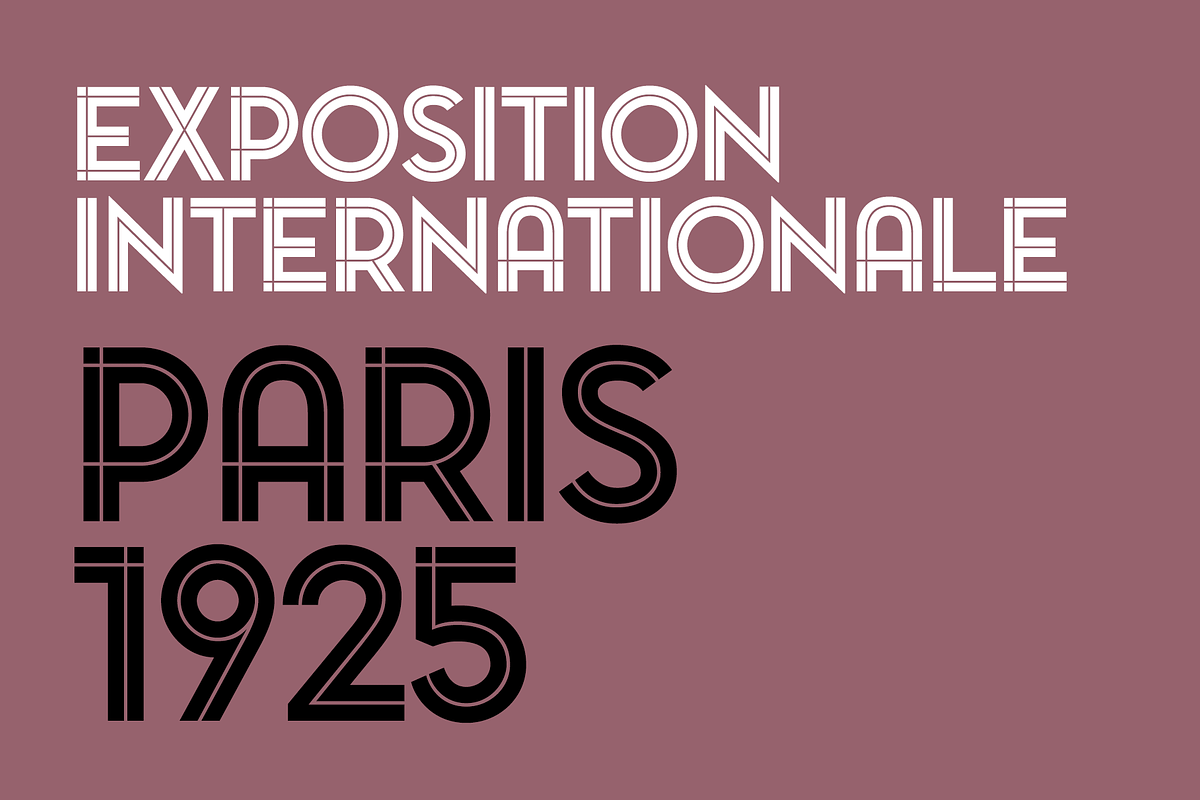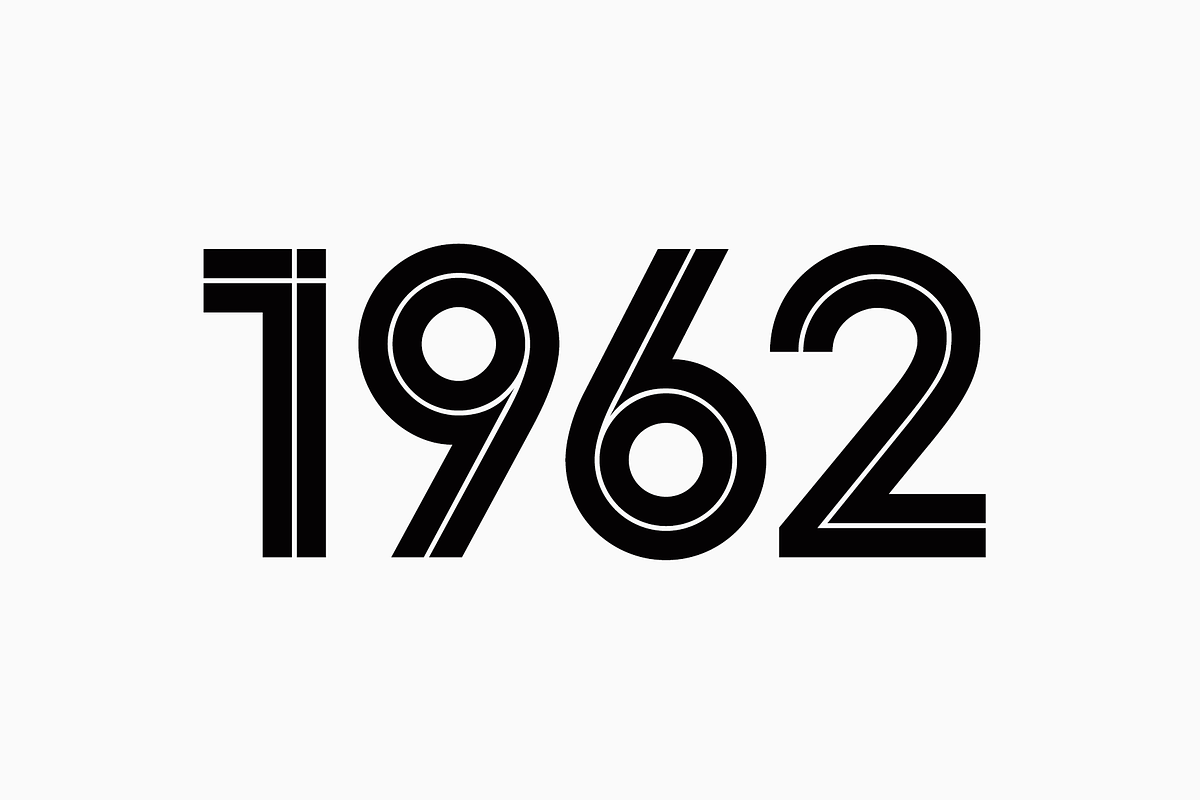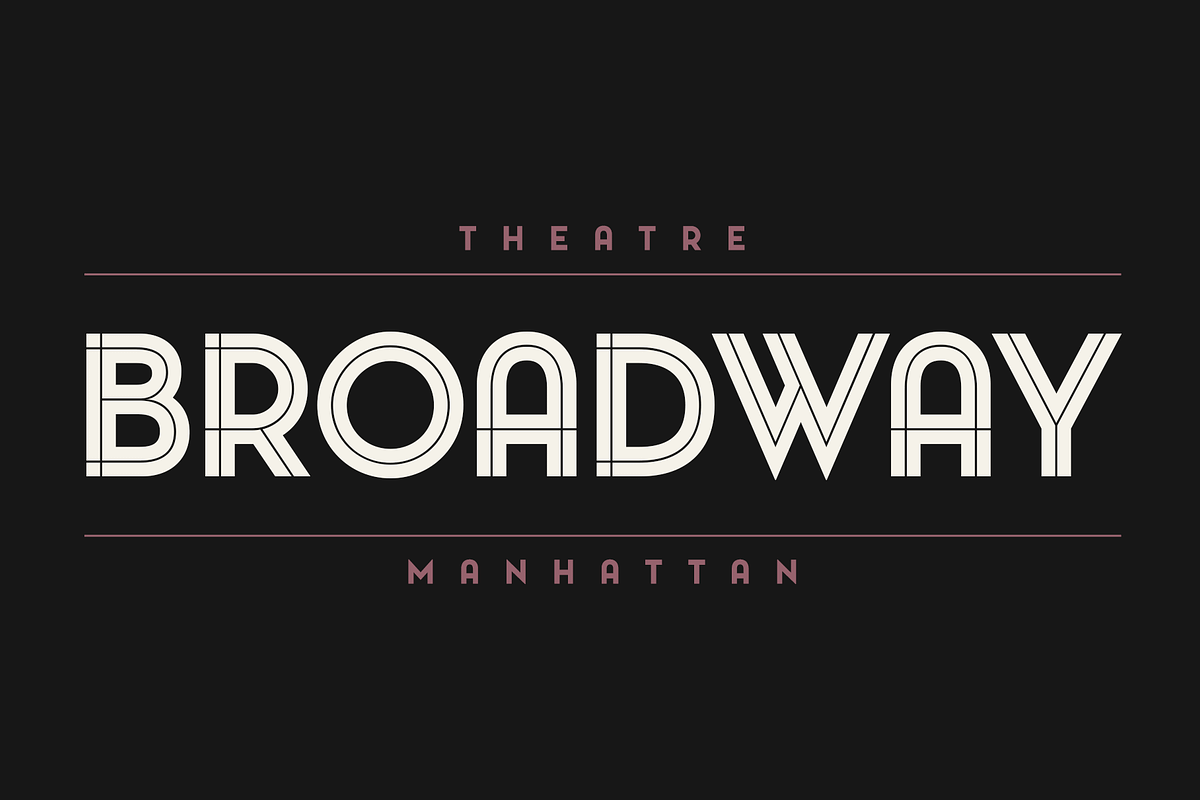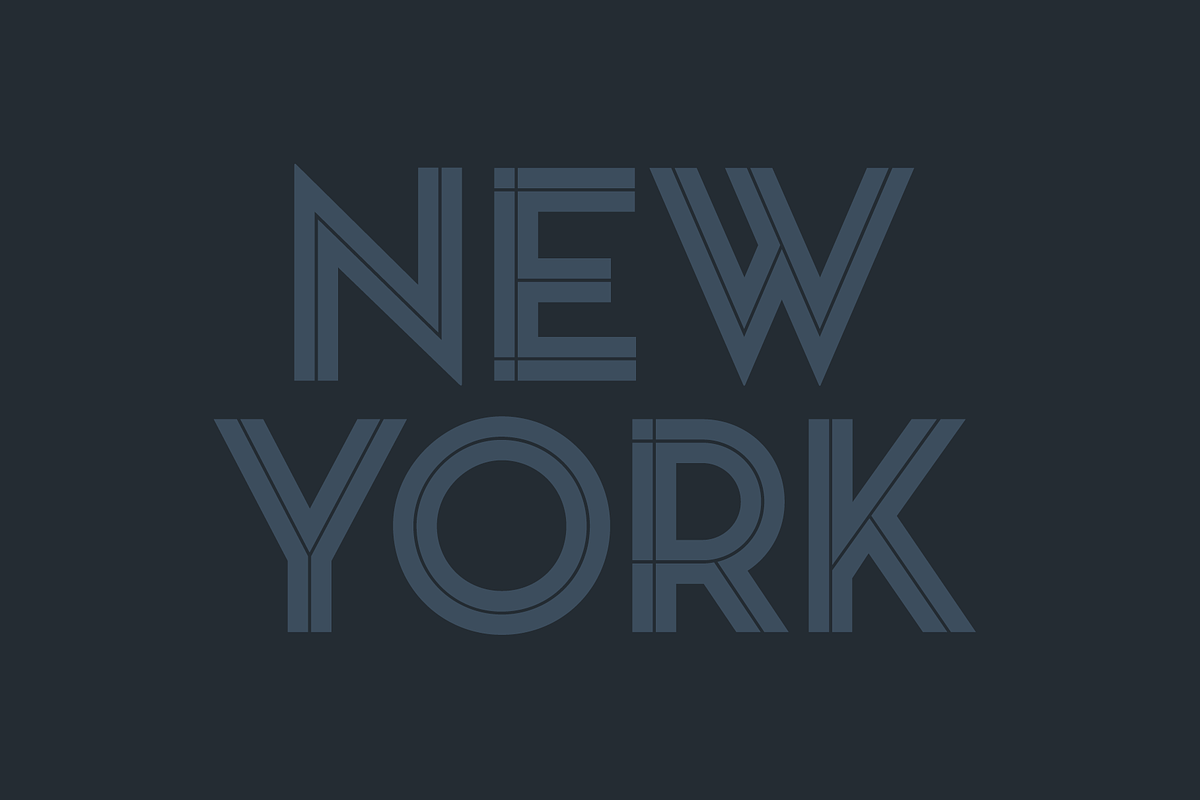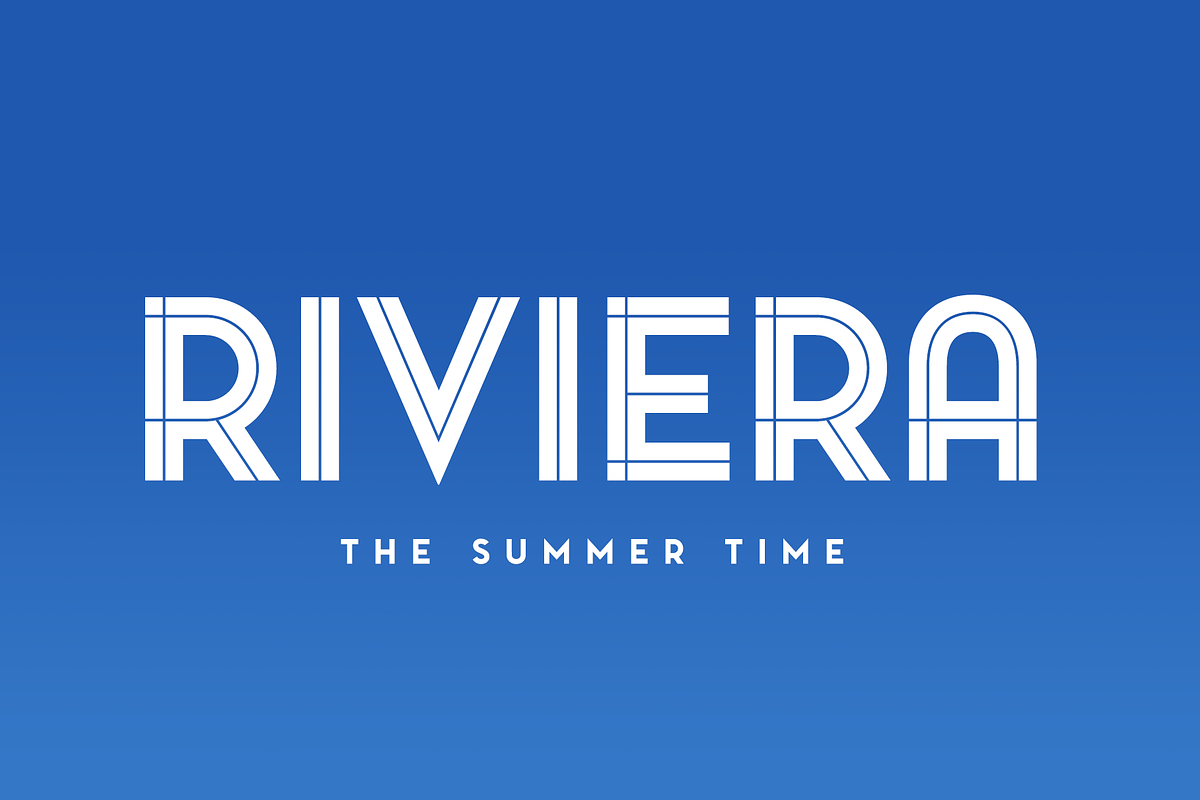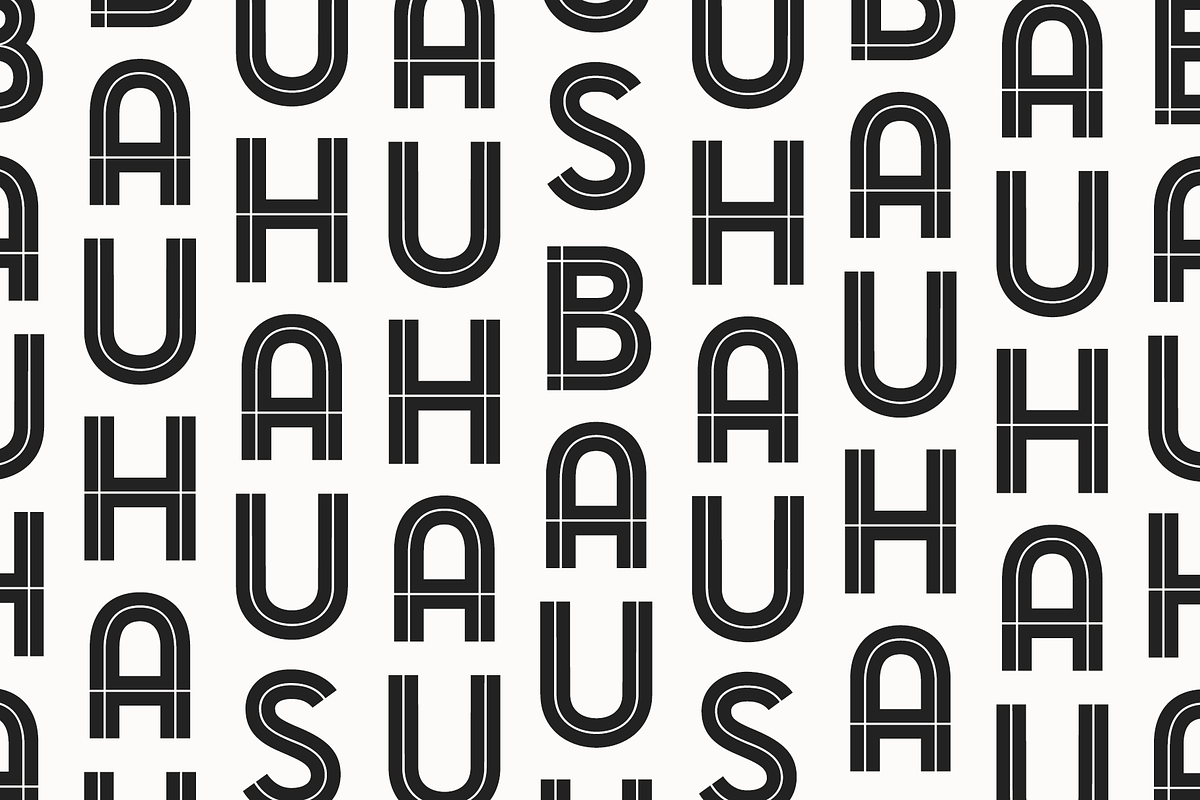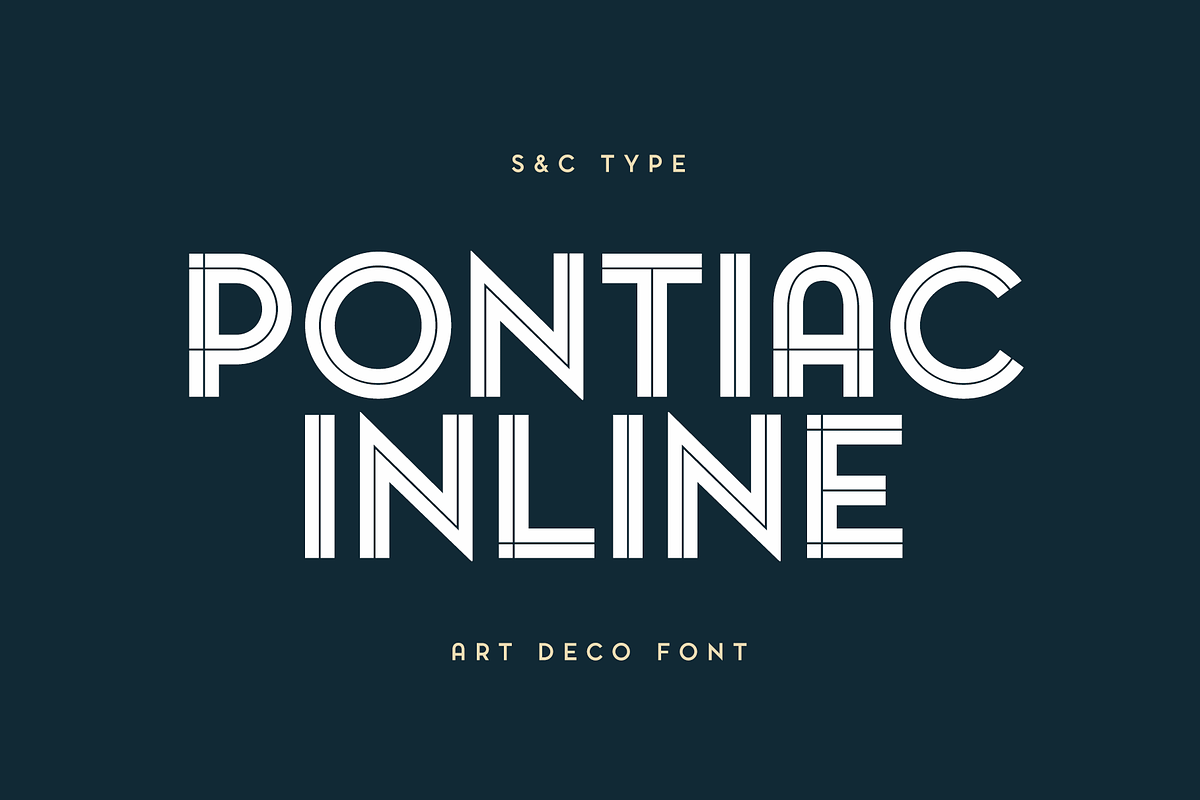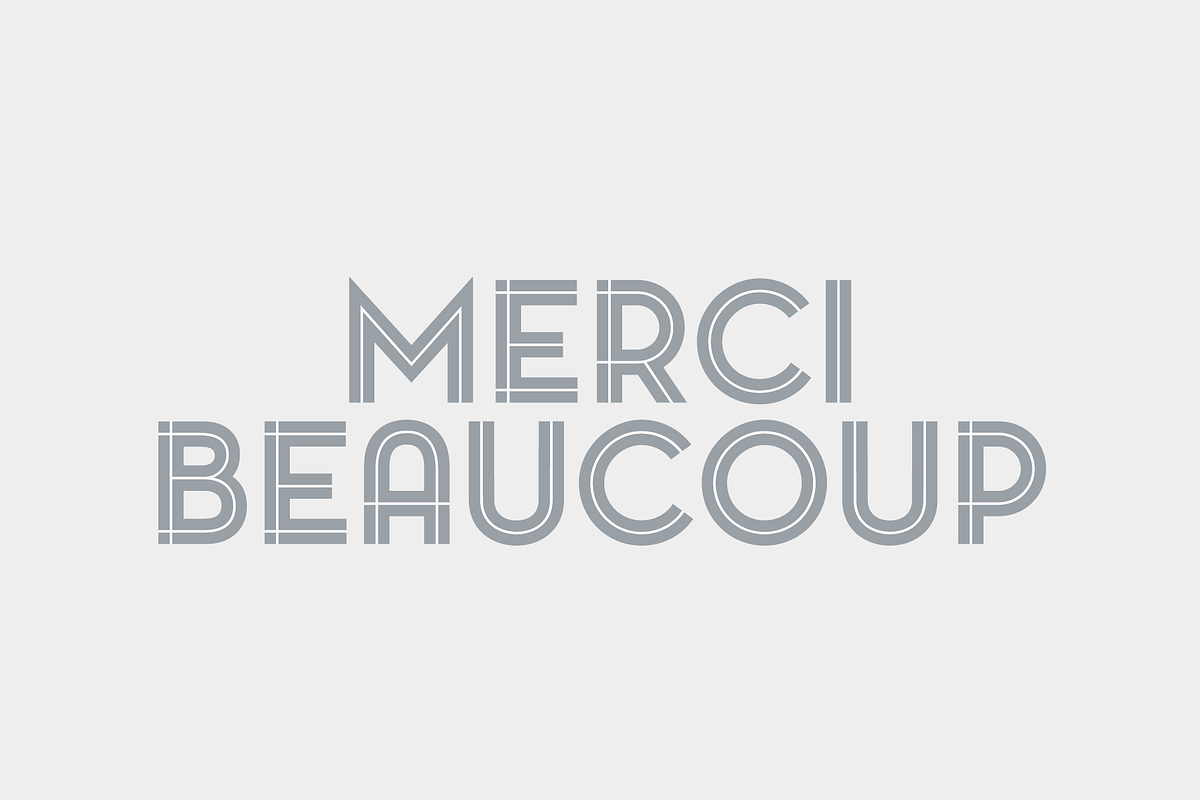
Pontiac Inline
Pontiac Inline is a Art Deco font designed by Fanny Coulez and Julien Saurin in Paris. We wanted to bring an unusual and modern feeling, you could find the layered full family on our shop to improve your designs.